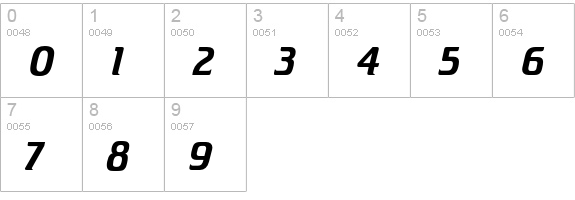
Crillee Italic Font Details
Crillee Italic is a distinctive, italic variant in the Crillee typeface family \xE2\x80\x94 well suited to design and typography projects.
Crillee Italic is a sleek and sophisticated typeface that exudes elegance and charm. Its slanted and stylish design adds a touch of flair to any project, making it perfect for creating eye-catching headings or adding a touch of distinction to your designs. The flowing curves and unique letterforms of Crillee Italic make it a versatile choice for a wide range of applications, from branding to editorial design. Best of all, Crillee Italic is available for free download at FontsMarket.com. This means you can easily access this stunning font and incorporate it into your projects without any cost. Whether you're a professional designer looking to add a new font to your collection or a hobbyist looking to experiment with typography, Crillee Italic is the perfect choice for your creative endeavors. Download it today and unleash your creativity with this beautiful and elegant typeface.